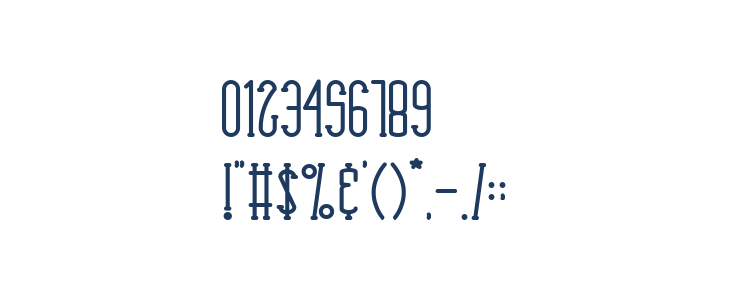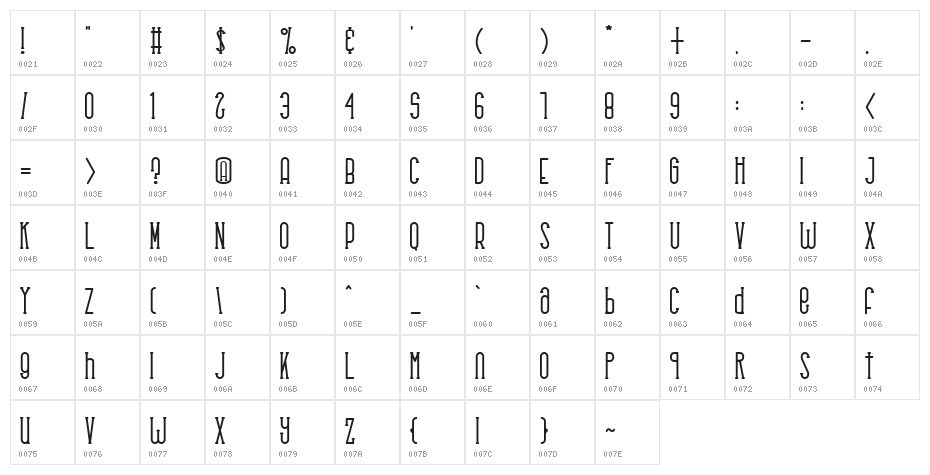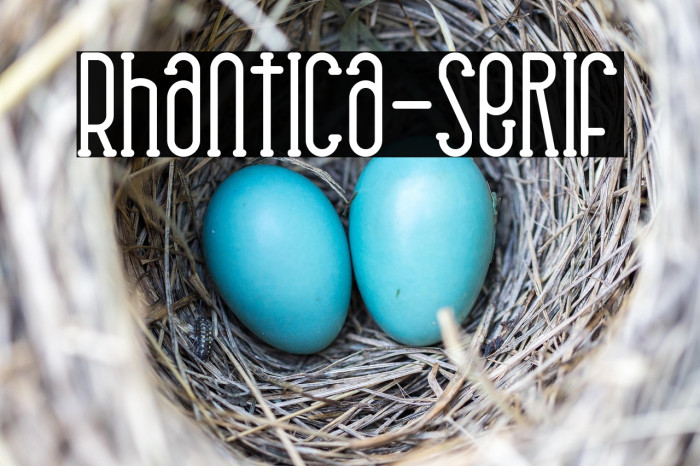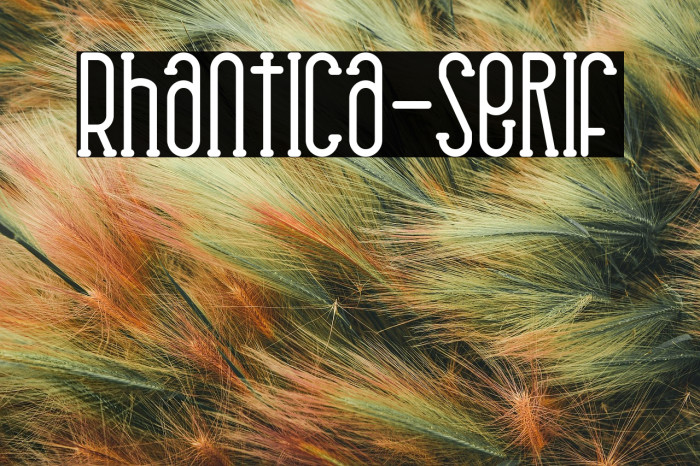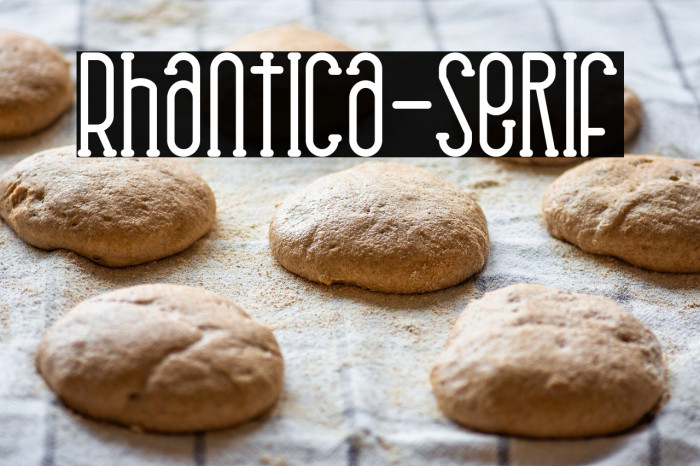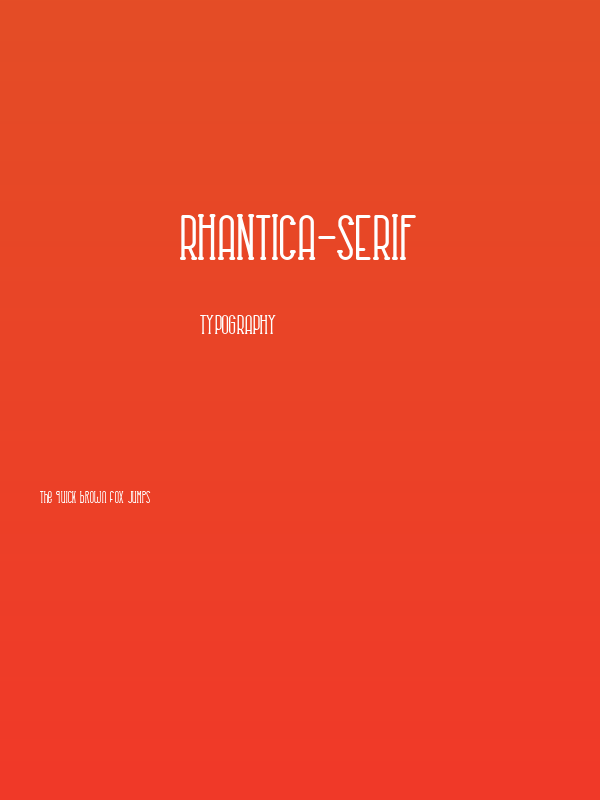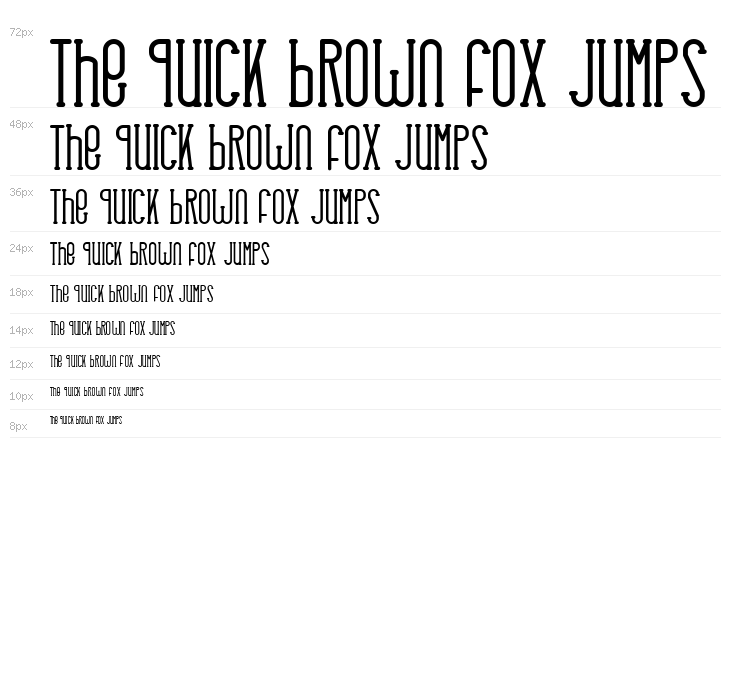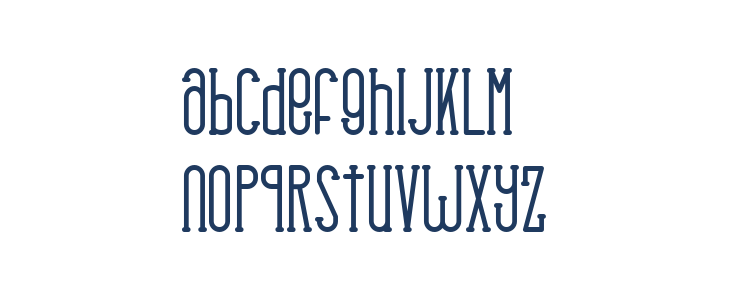
Rhantica-Serif Font
Rhantica-Serif Description
This font features a unique blend of modern and vintage aesthetics, characterized by its tall, narrow letterforms and subtle serifs. The uppercase letters are particularly elongated, giving a sense of elegance and sophistication. The lowercase letters maintain a consistent style, with a slightly playful touch due to their rounded edges. The numerals are distinct and easy to read, matching the overall style of the alphabet. Special characters are well-integrated, maintaining the font's cohesive look. The design is both decorative and functional, making it versatile for various applications.
| Overall Style | Modern Vintage |
| Use Case | Headlines, Logos, Editorial Design |
| Proposed Projects | Ideal for branding, editorial design, and packaging projects that require a touch of elegance and sophistication. |